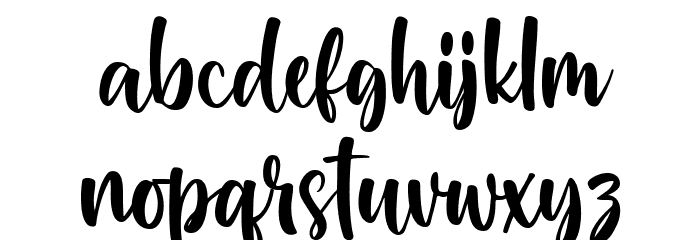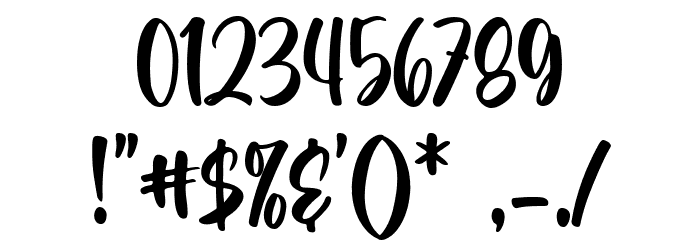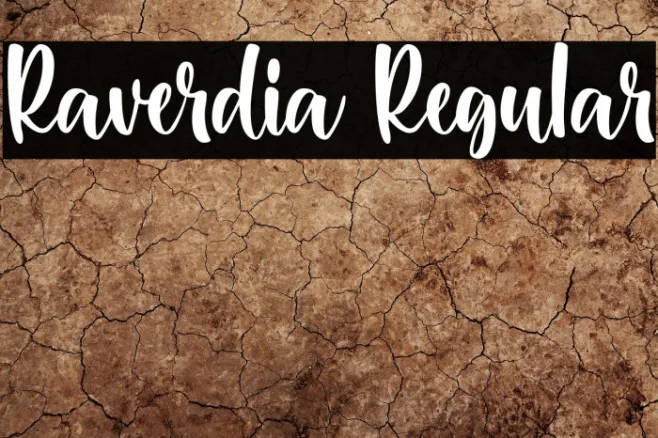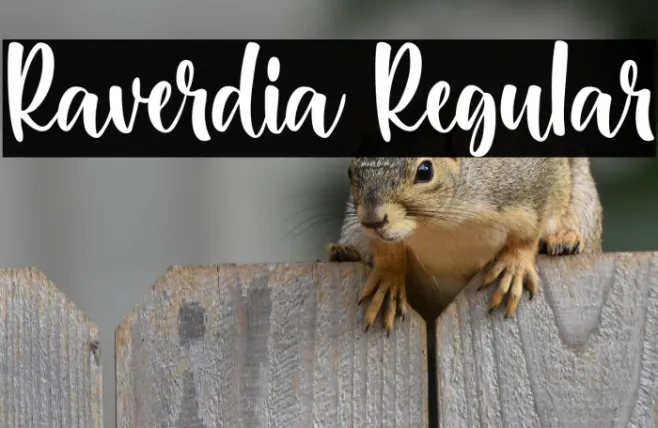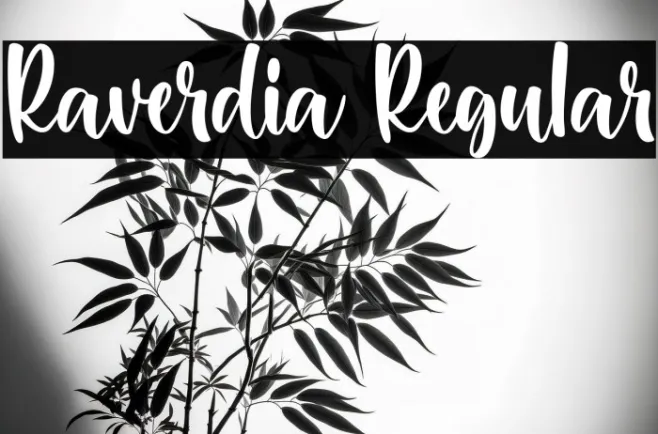
Raverdia Regular Font
This font features a bold and expressive script style, characterized by its fluid and dynamic strokes. The letters are interconnected, creating a sense of movement and elegance. The uppercase letters are tall and slightly narrow, while the lowercase letters maintain a consistent flow with rounded edges. The numerals and special characters follow the same stylistic approach, ensuring uniformity across all glyphs. This font's playful yet sophisticated appearance makes it suitable for a variety of creative applications.
A bold, expressive script font with fluid, interconnected strokes.
- Proposed Projects: Ideal for branding, invitations, greeting cards, and social media graphics.
- Use Case: Logos, Headlines, Invitations